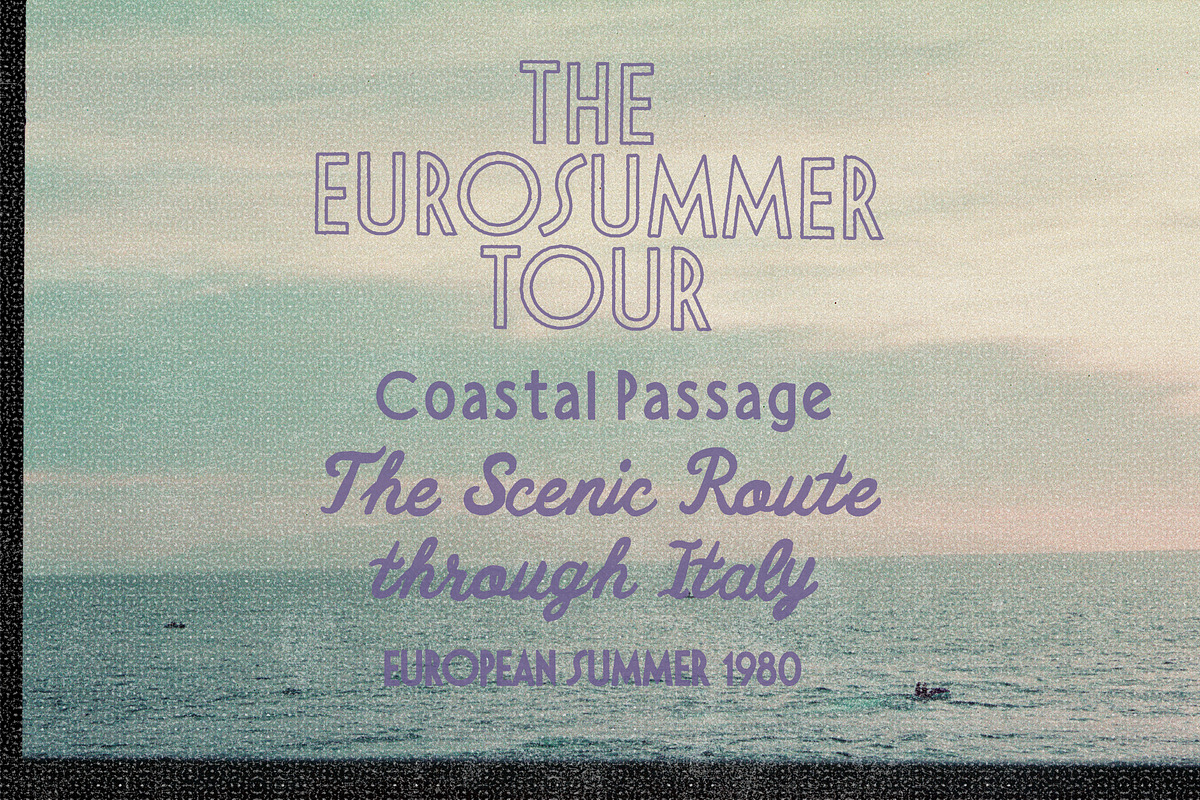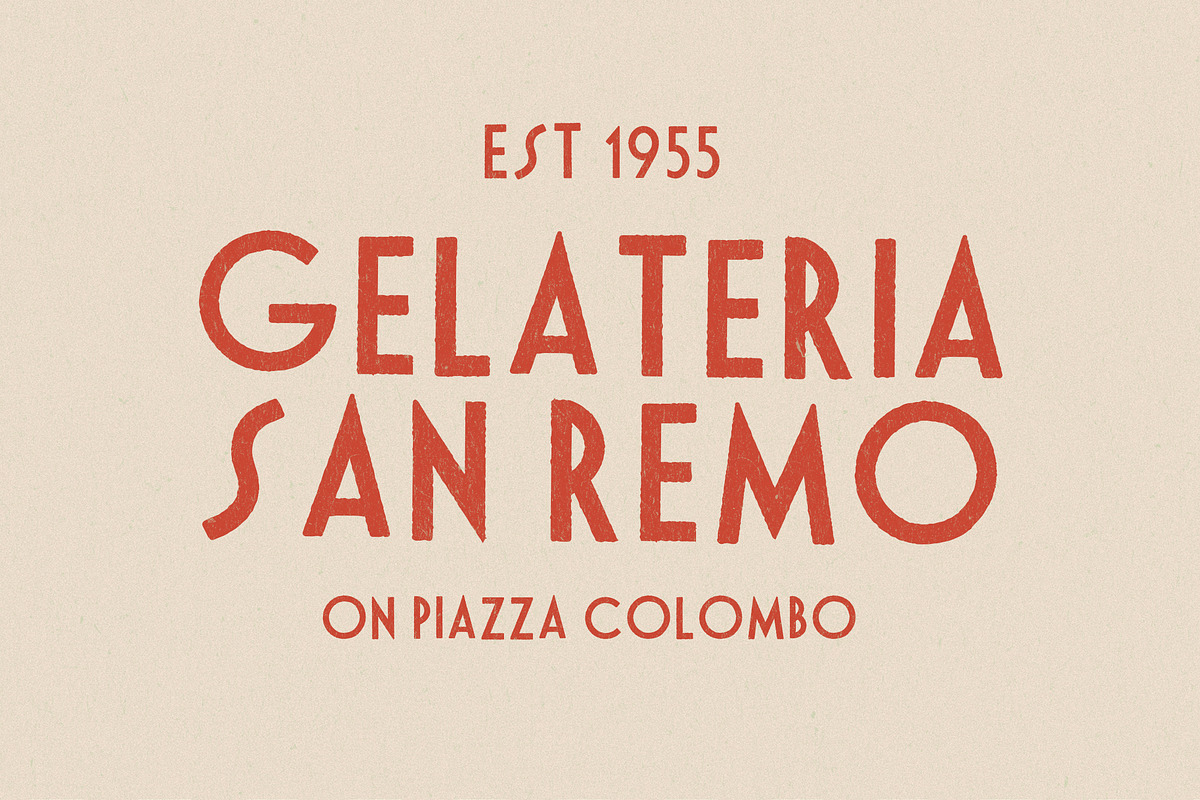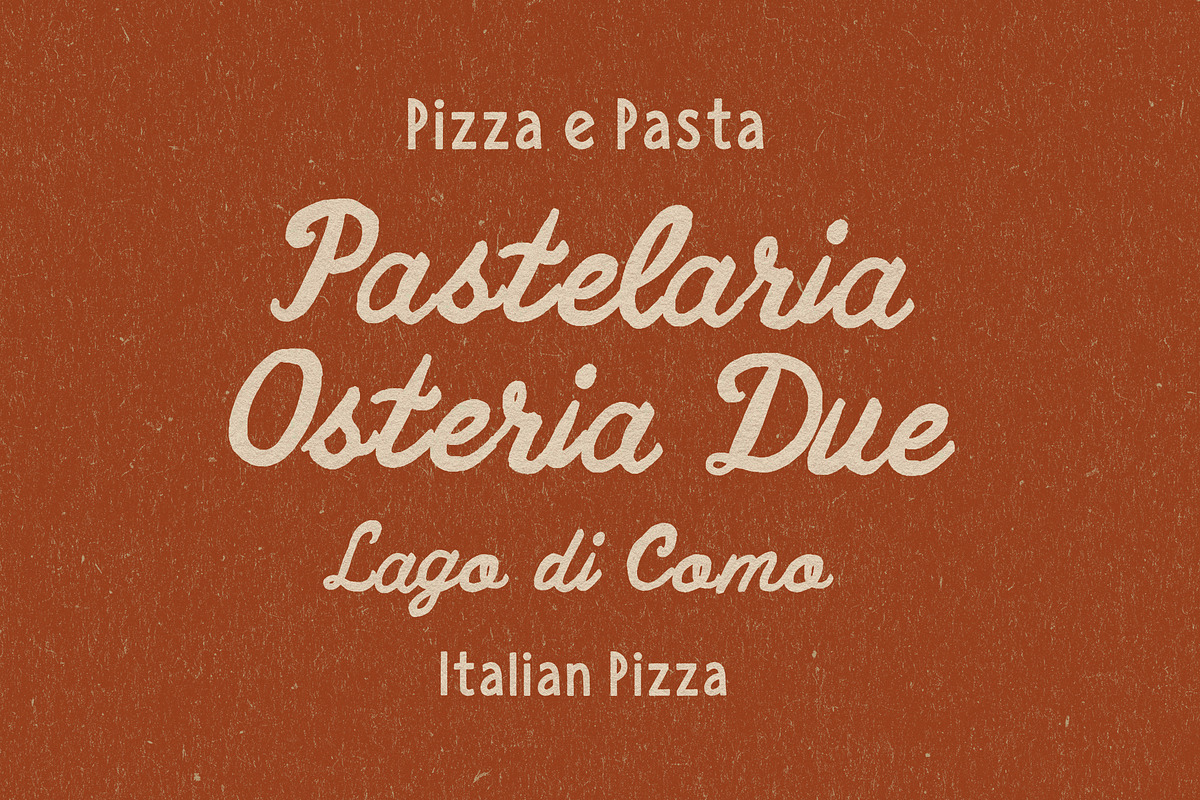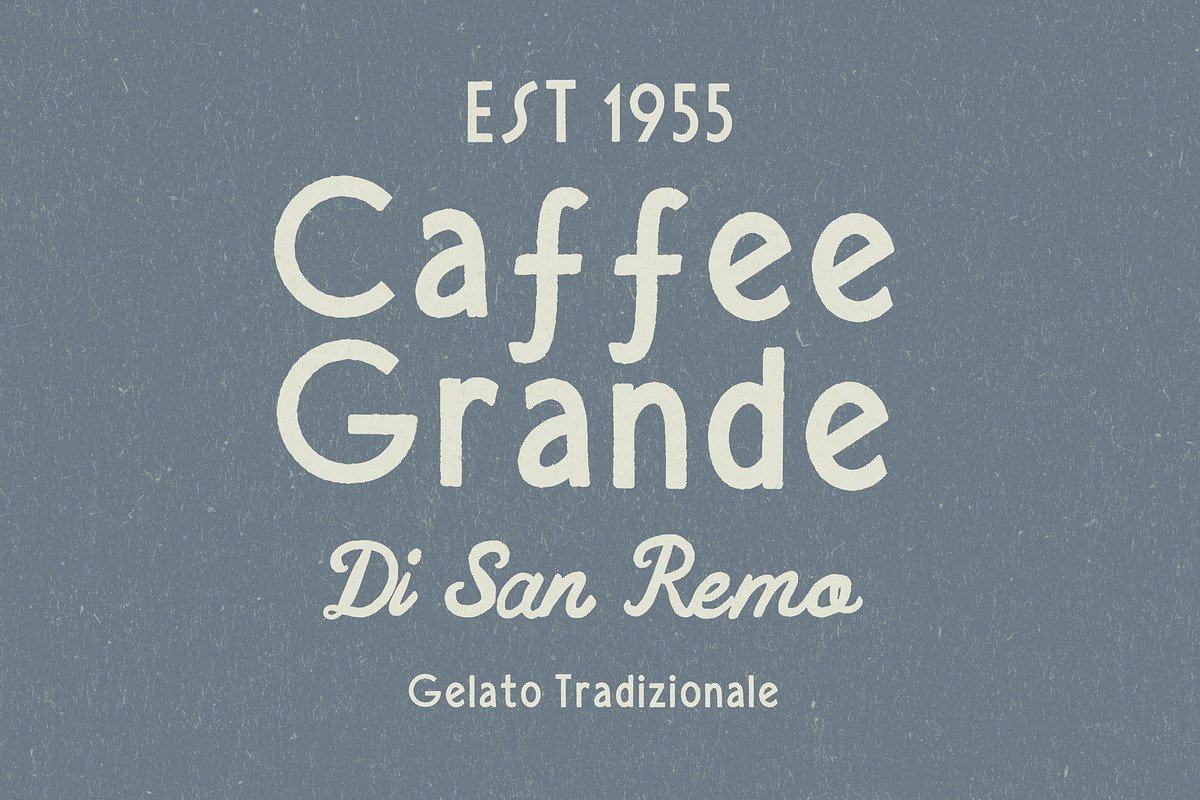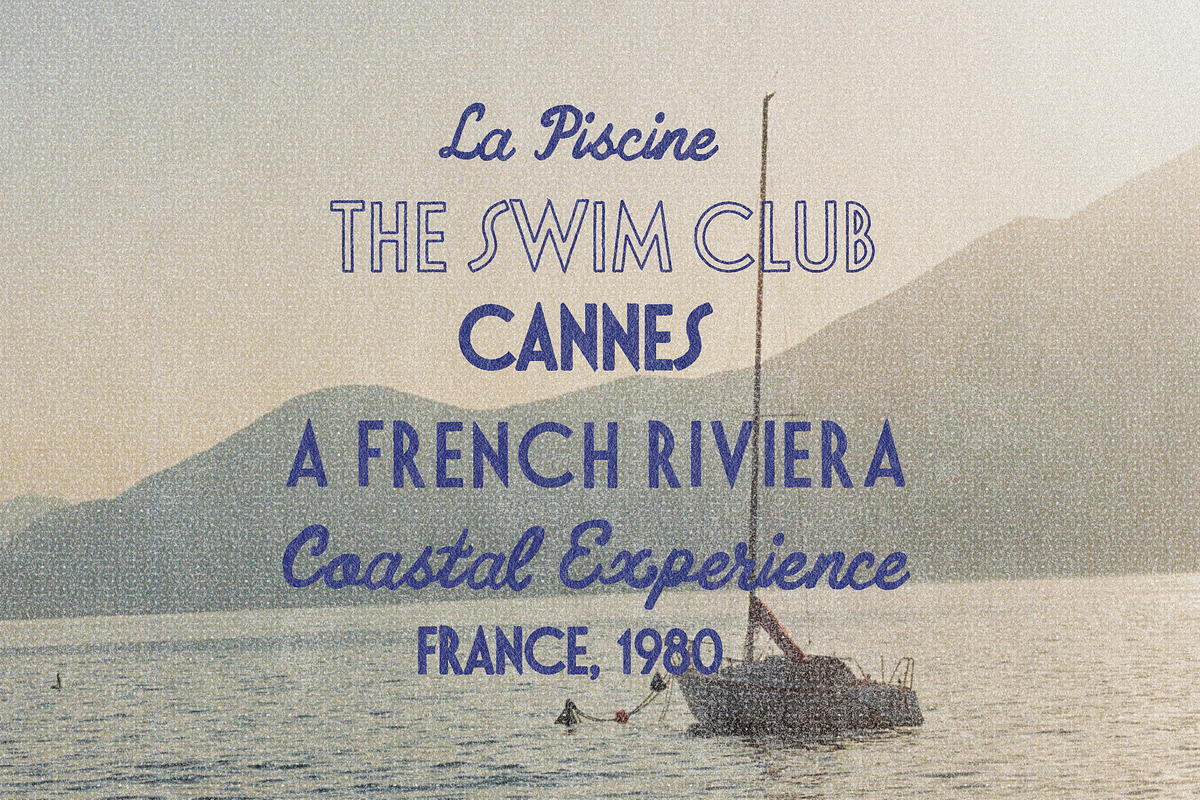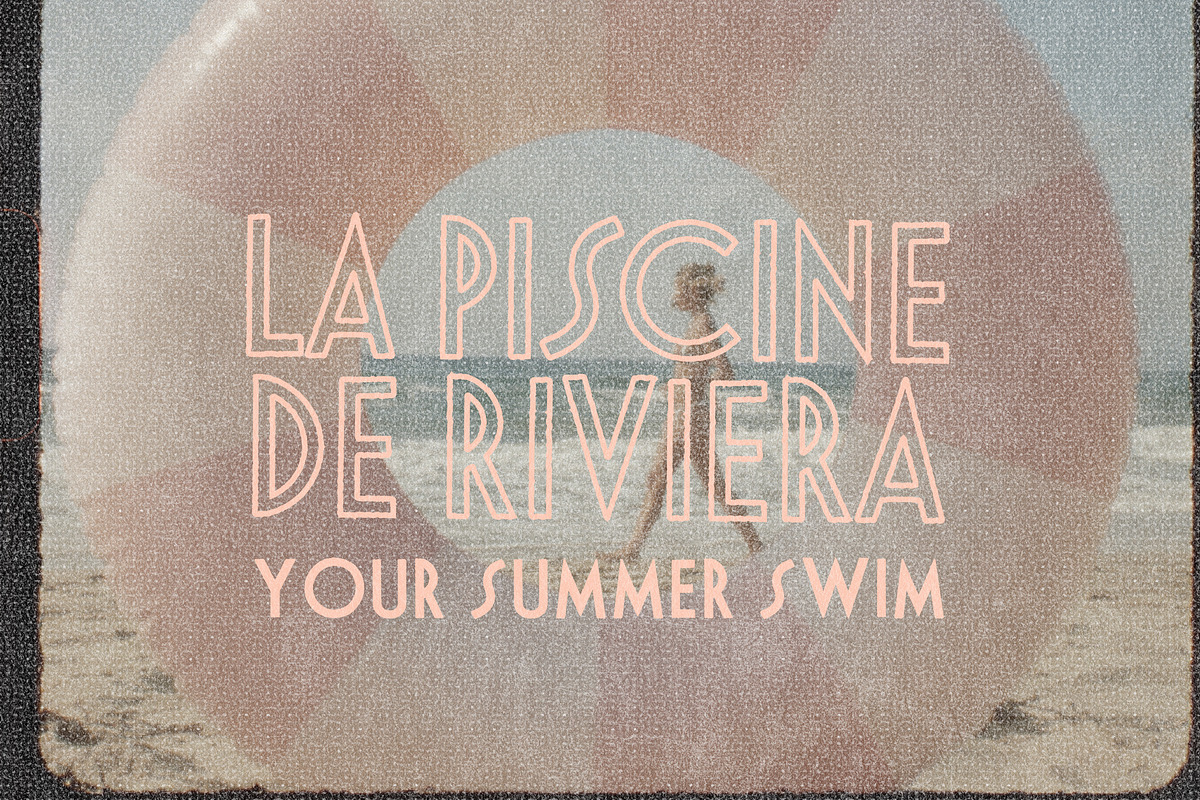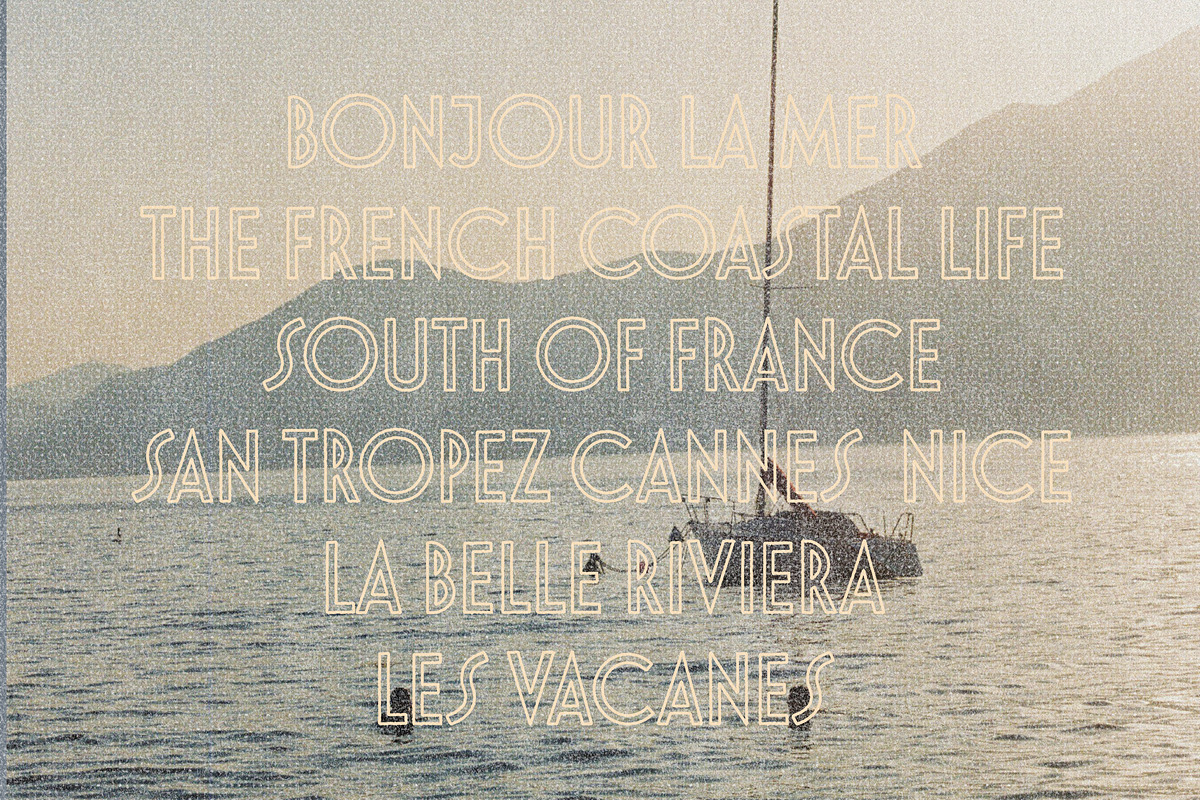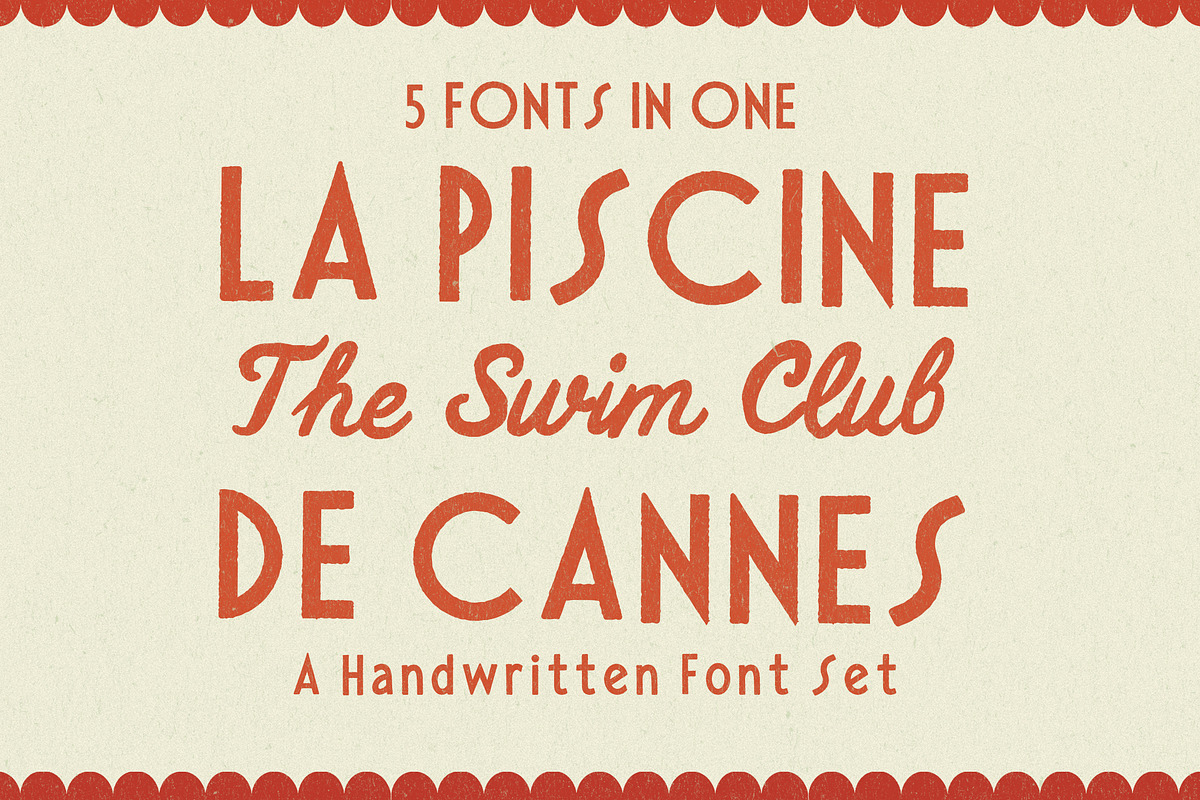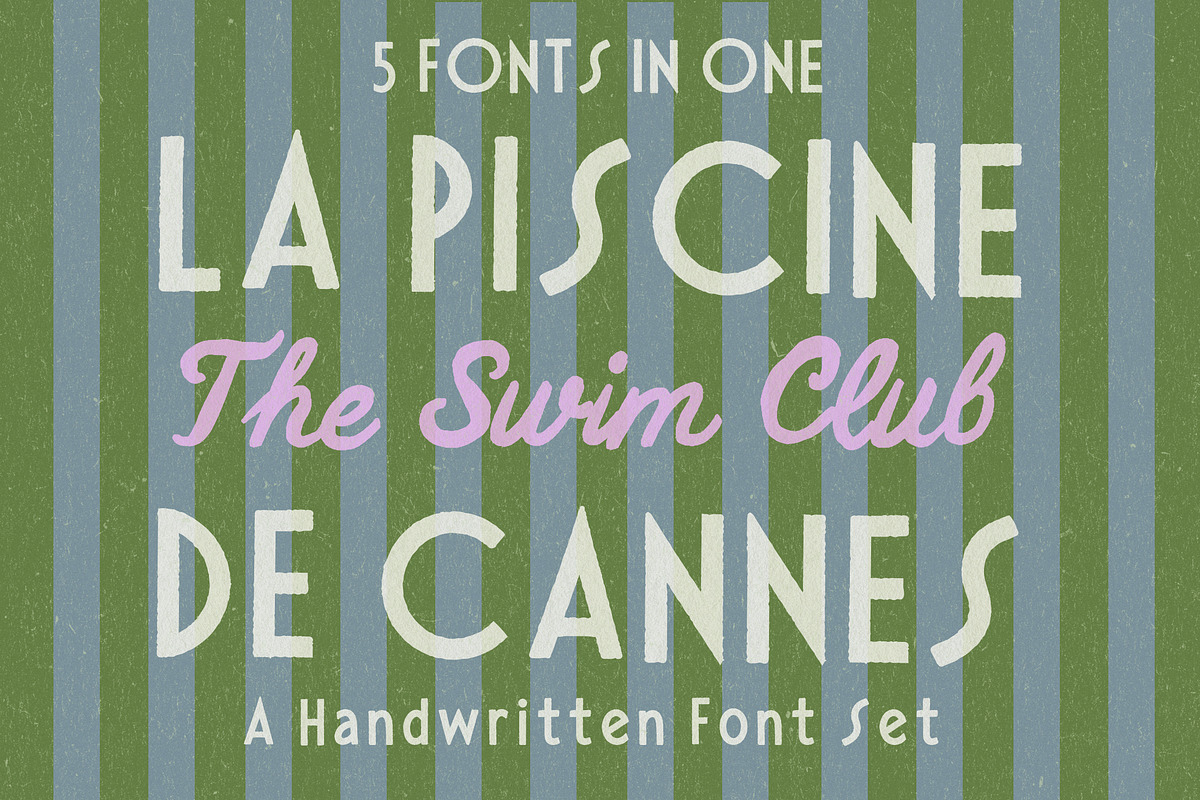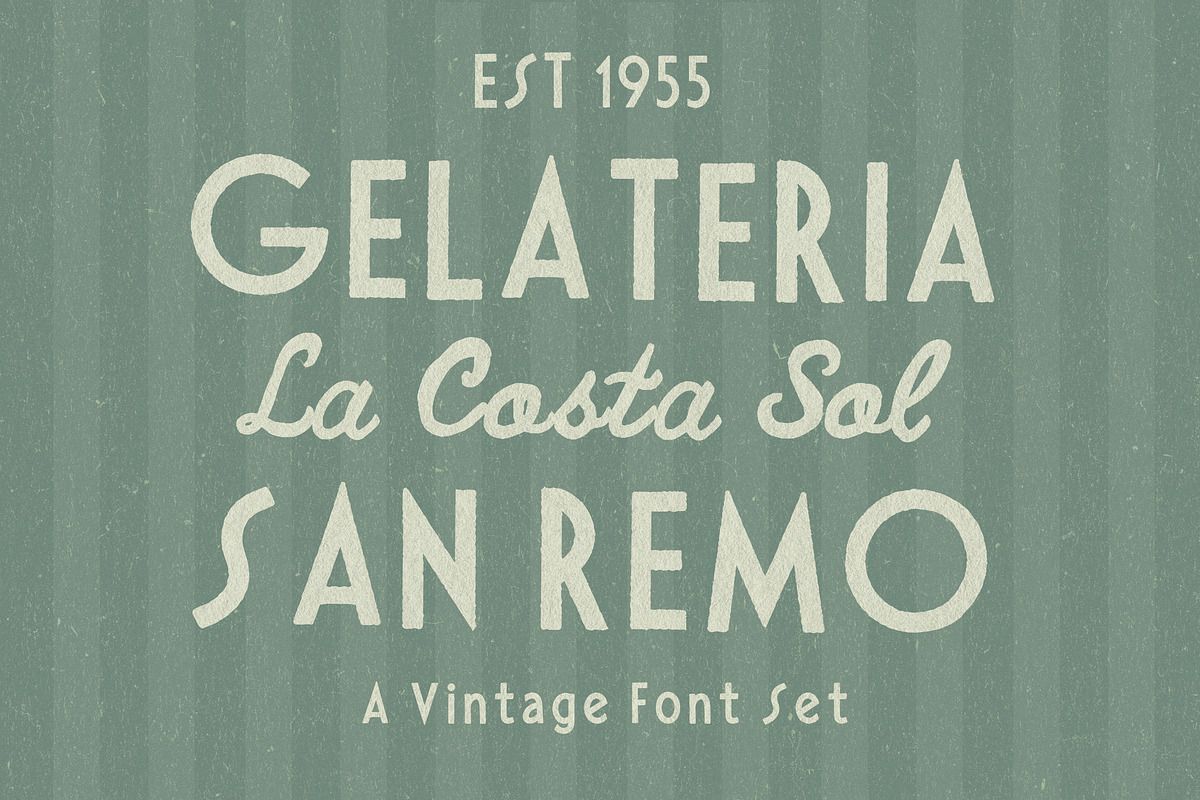
Vintage Sign Painter Sans and Script
Say bonjour to La Piscine de Cannes!
A vintage Riviera font family with a little bit of Italian summer, a little bit of old French pool club, and a lot of sun-faded nostalgia. Think striped umbrellas, handwritten menus, retro pizzeria signs, coastal hotels, poolside spritz, tiny cafés, and that perfect “found on an old postcard” feeling. The vintage sign painter sans comes in a regular, thin, bold and outlined version and is paired with a playful and handwritten script.
La Piscine de Cannes is made for designs that want to feel warm, stylish, and just a little dramatic in the best way. It has that vintage signage feeling without trying too hard, which is exactly why it works so beautifully for summer branding.
Perfect for vintage summer branding, retro logos, restaurant menus, Italian packaging, French Riviera designs, boutique hotel branding, beach club graphics, café signs, travel-inspired prints, wedding stationery, summer merch, and dreamy Mediterranean moodboards.